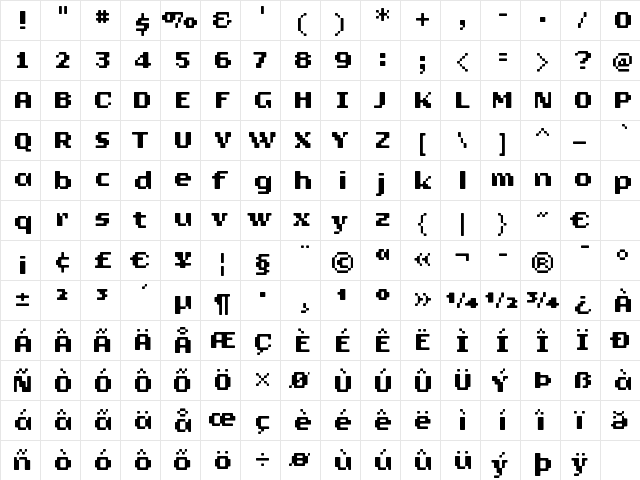
LRPlusNine WideB
| Designer | Zuzana Licko |
Design Context for LRPlusNine Typeface
LRPlusNine offers clean, dependable letterforms without strong stylistic allegiance, making it a practical choice for designers who need flexibility.